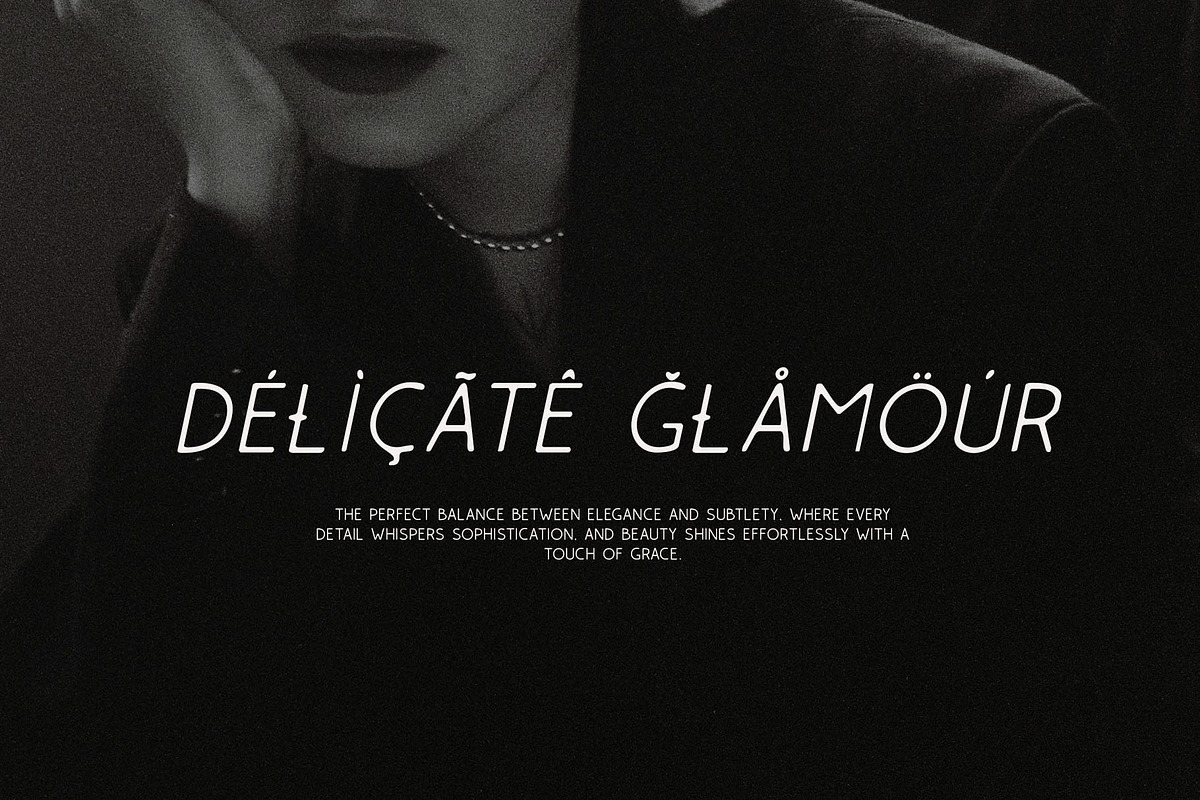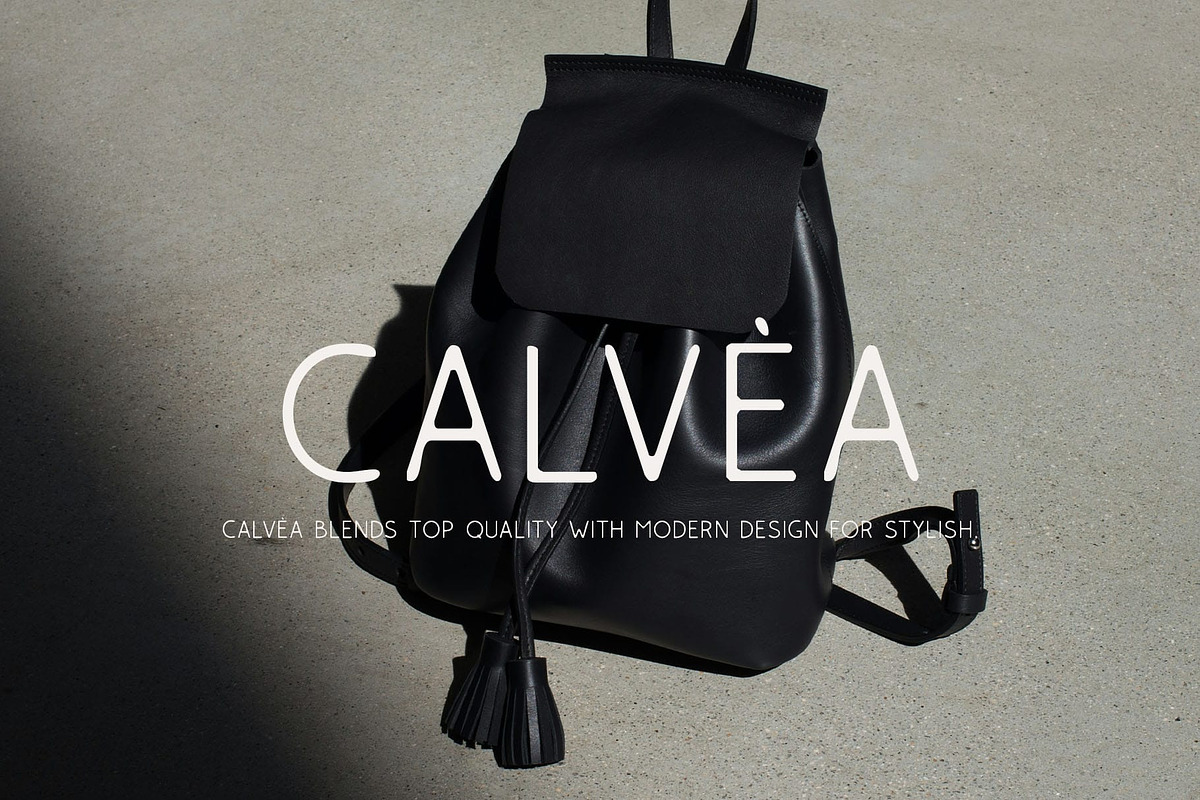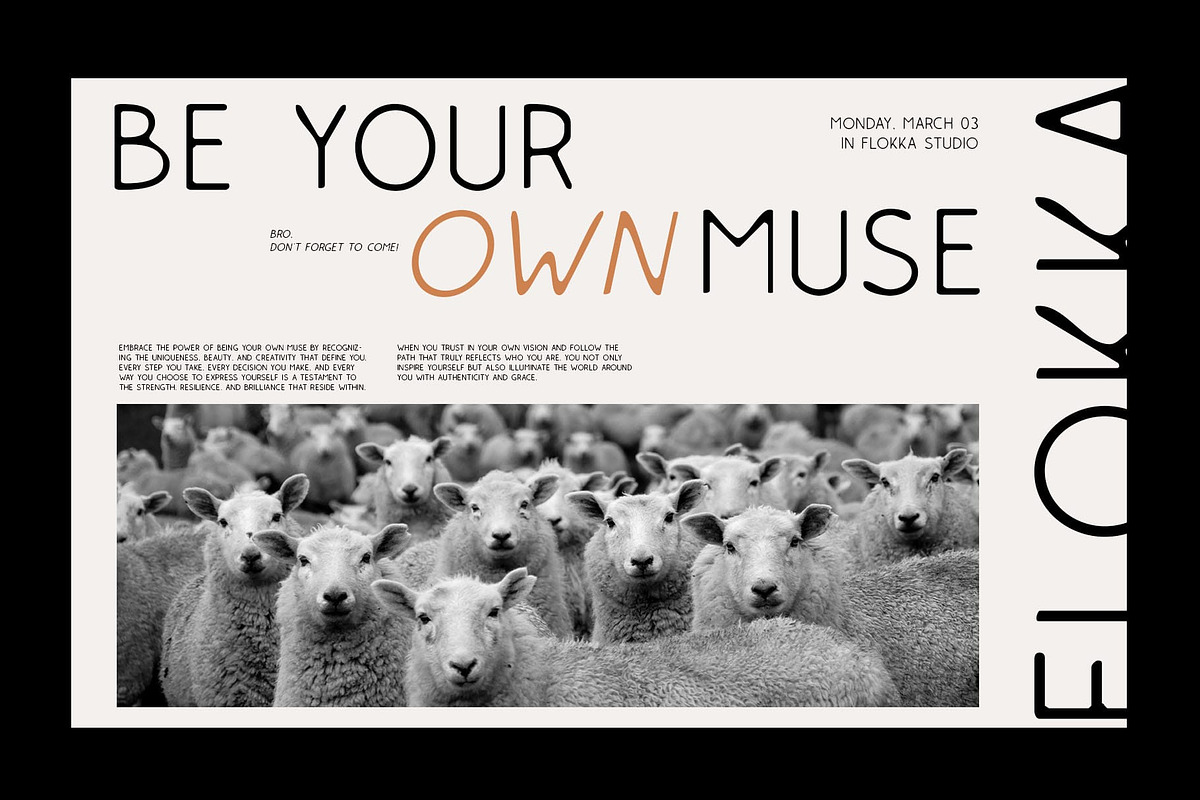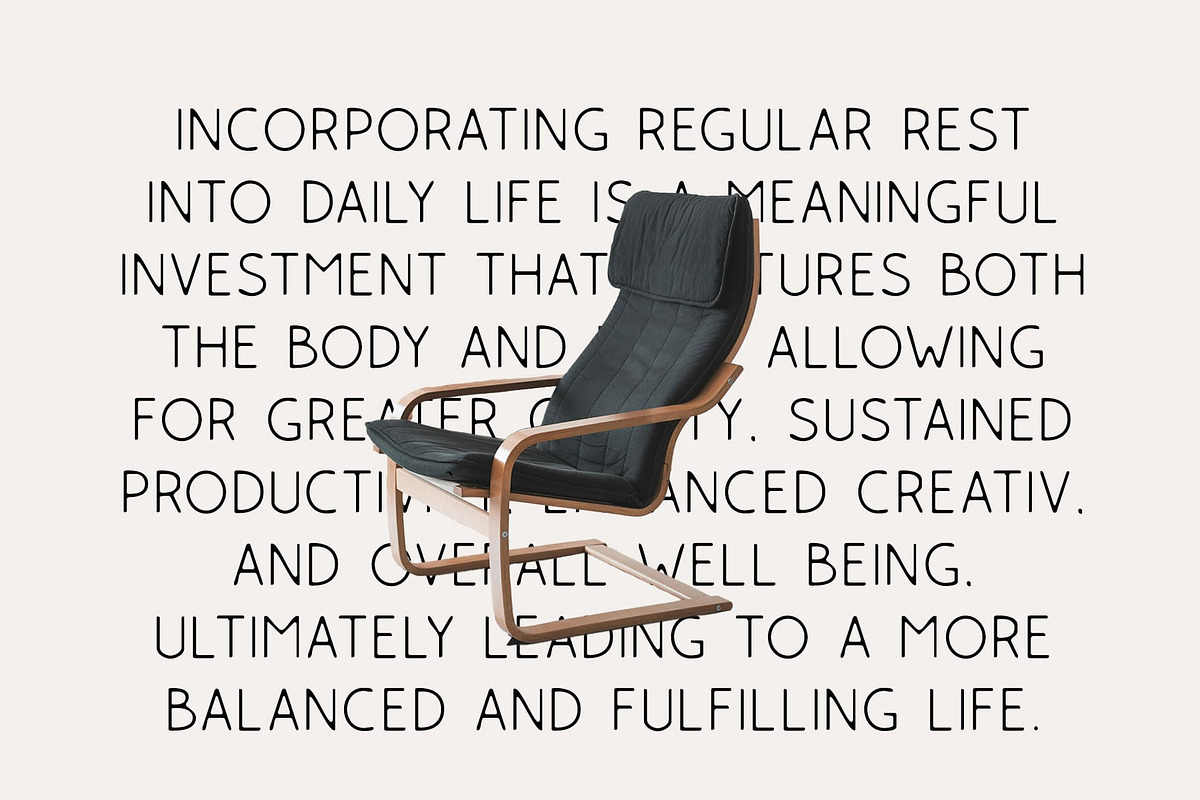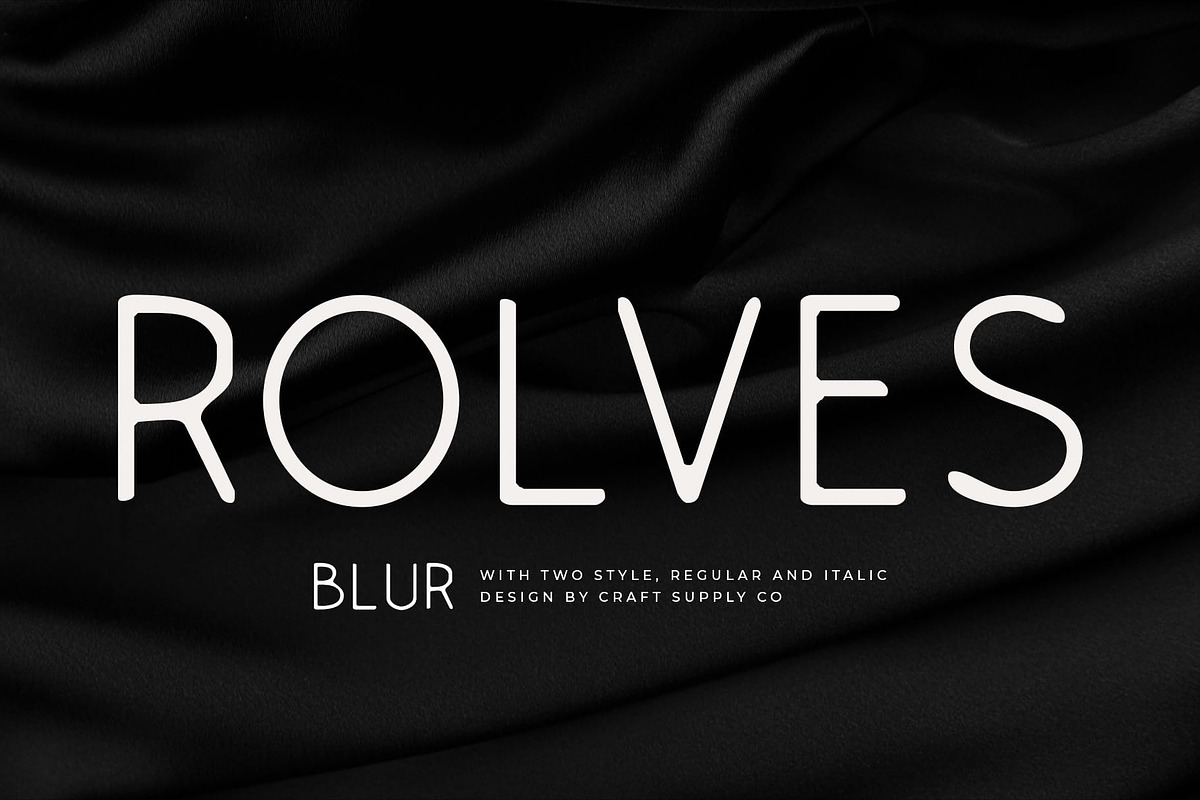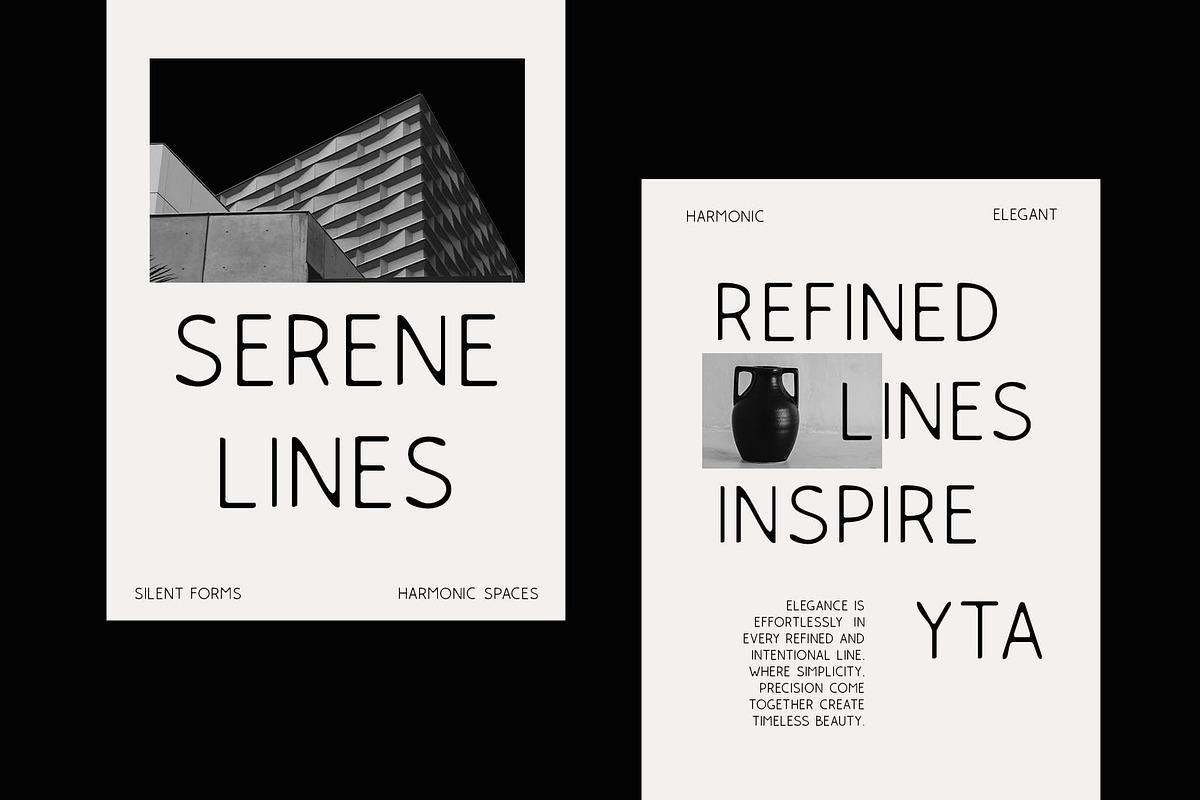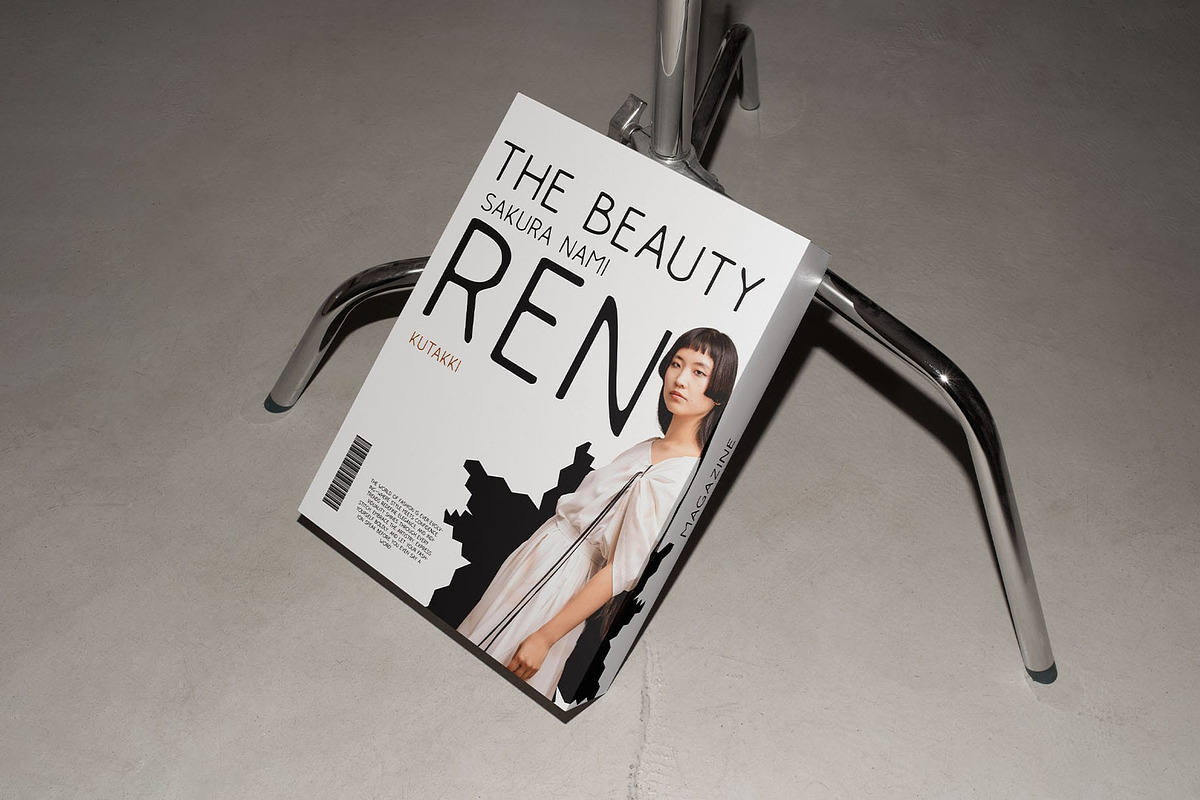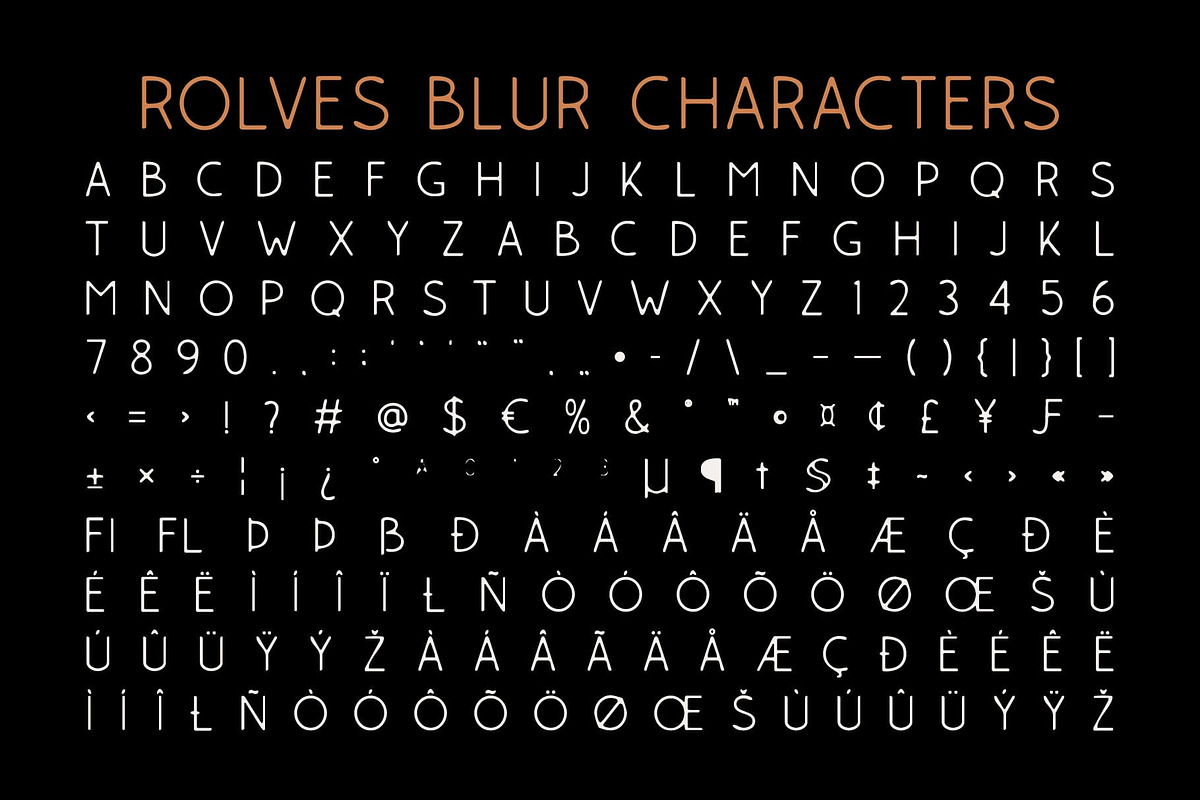
Rolves Blur
Rolves Blur Font – A Futuristic Sans with a Dreamlike Effect
Modern Sans-Serif with a Geometric Foundation Rolves Blur is a modern sans-serif font with a clean, minimalist, and geometric form, ensuring a sleek and contemporary look. Its sharp yet balanced letterforms maintain clarity while embracing a sense of precision and symmetry, making it a versatile choice for various design applications.
Blur Effect for an Experimental Aesthetic What sets Rolves Blur apart is its soft-focus blur effect, which adds a sense of movement, depth, and artistic intrigue. This effect enhances its futuristic and experimental appeal, making it a perfect choice for projects that push creative boundaries.
Perfect for Innovative and Edgy Designs Rolves Blur thrives in modern branding, high-tech visuals, futuristic themes, and artistic layouts. Whether used in posters, editorial headlines, album covers, or digital media, it injects an avant-garde and cutting-edge feel, elevating the overall design.
A Unique Blend of Clarity and Distortion Striking the balance between legibility and artistic abstraction, Rolves Blur delivers a distinctive visual statement. Its combination of precise structure and soft blur makes it ideal for those seeking a bold yet unconventional typographic identity.